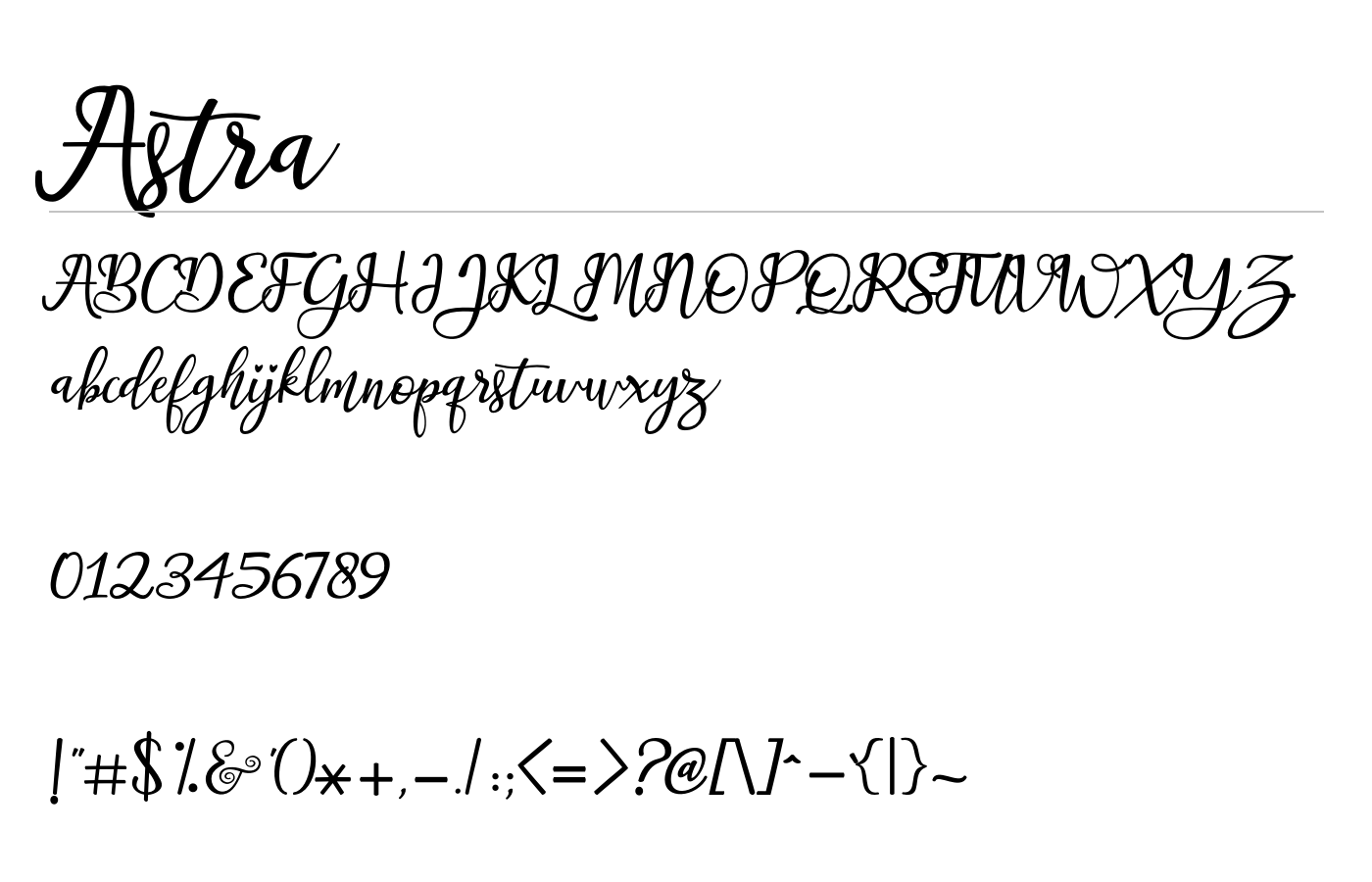
Astra is an elegant script font with a graceful, flowing style that combines smooth curves and refined details, perfect for adding a sophisticated touch to designs. Its delicate stroke contrast and decorative letterforms make it ideal for invitations, branding, and headline use where a charming, personal feel is desired. This font works beautifully for fashion, luxury, and creative projects that need a stylish, handwritten flair.
Astra Font
About Astra Font
| Font family | Astra Font |
| Designer | ayah phoen |